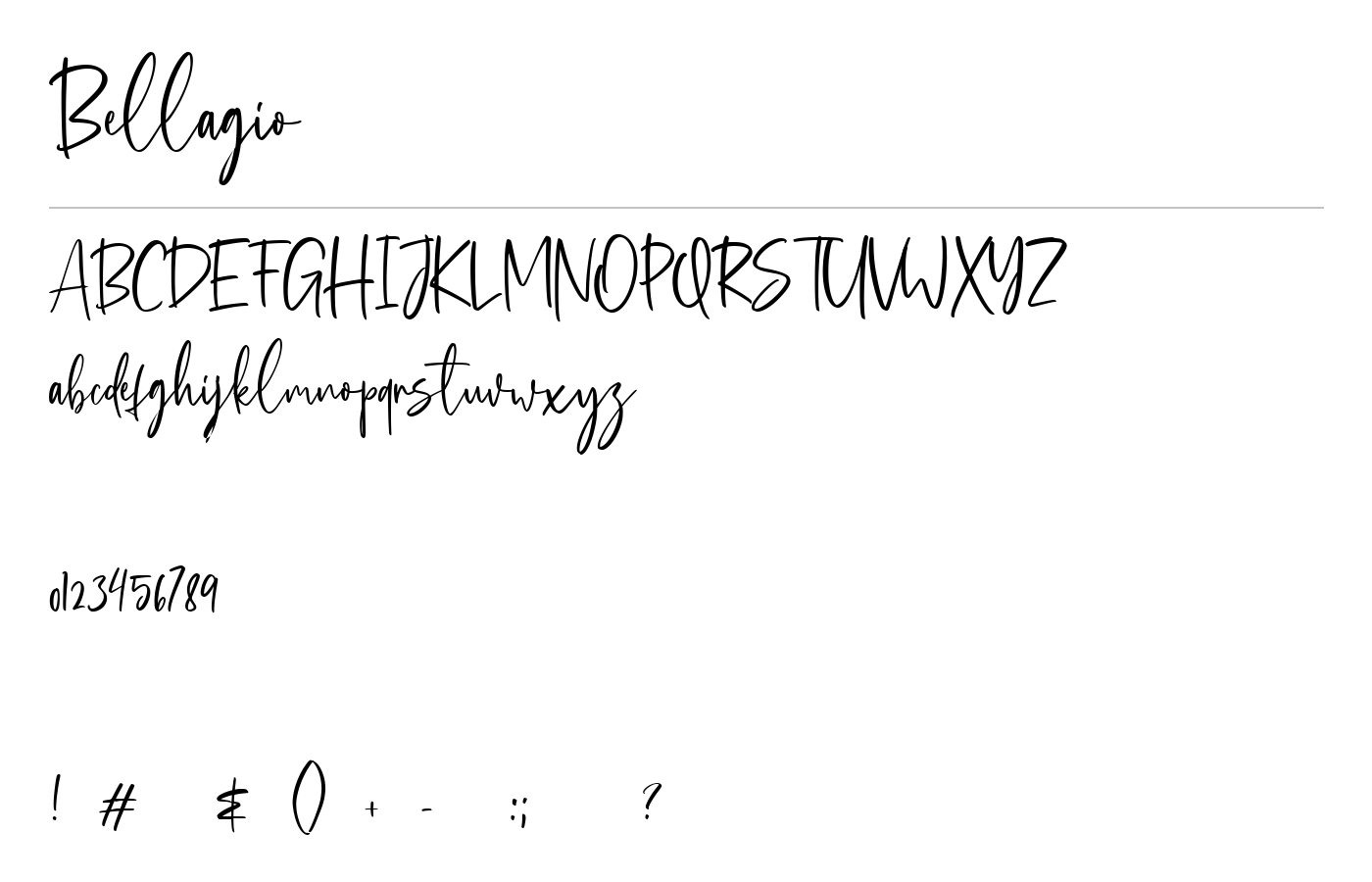
Bellagio is a delicate, handwritten script font with an airy and elegant feel. Its slender, slightly irregular strokes give it a natural, personal touch, making it perfect for invitations, branding, and creative projects seeking a charming and approachable style. This font works beautifully in designs where a soft, sophisticated, and friendly tone is desired.
Bellagio Font
About Bellagio Font